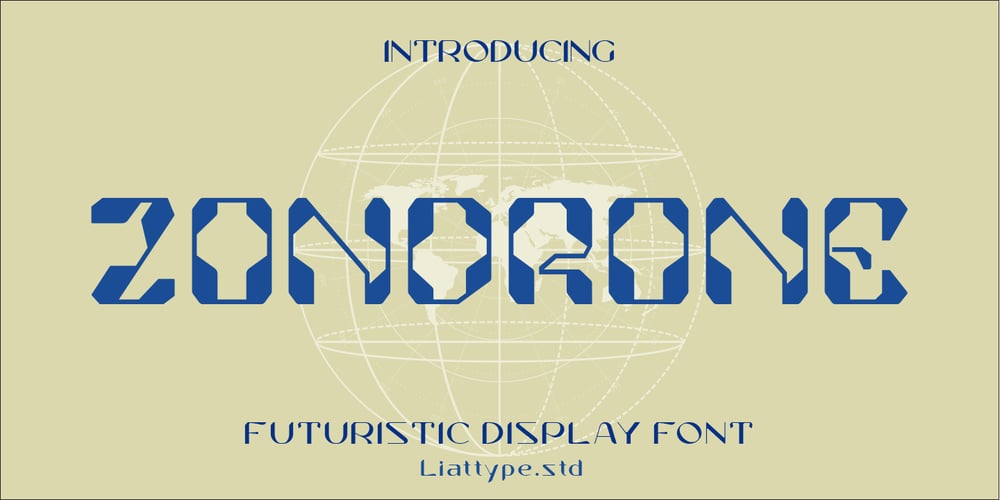
Zondrone Font Family was designed by Ali Sifak Muftari and published by Liartgraphic. Zondrone contains 1 styles and family package options. Hello gaes!How are you guys doing ? i’m sure that’s nice!Meet our newest product, we call this product Zondrone font.Zondron font are cute typeface fontWhit a uniqe touch and assertiveZondron font is very nice to use on:fashion magazine,logos, ,and photography,landing page,fliyer,What’s includes- mutilngual support- alternate- ligatureThank you,salutationsAli Sifak Muftari